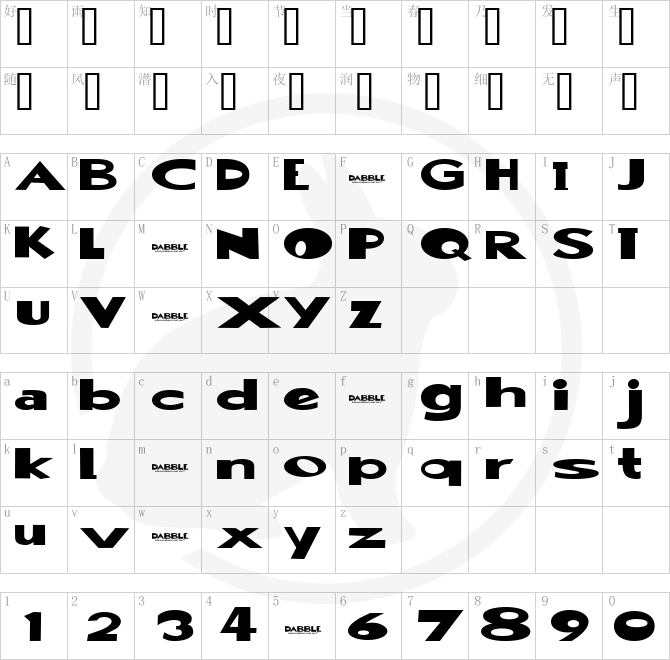
- Font Name:Dabble(eval)
Dabbleeval-.ttf is a very beautiful artistic font, Dabbleeval-.ttf is widely used in the design and printing of various books and pictures,Dabbleeval-.ttf has a strong visual impact,Dabbleeval-.ttf is a commonly used font in newspapers, magazines and books, and is used in posters, e-commerce Poster design, store design, logo design, font design and other fields.Dabbleeval-.